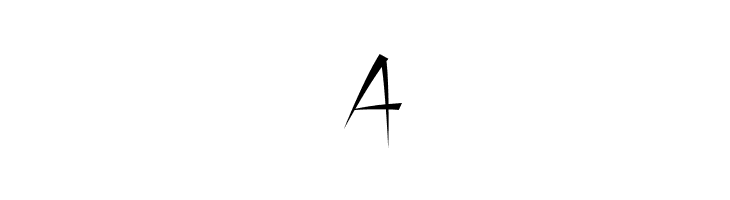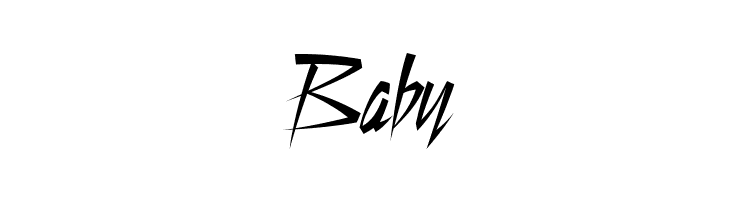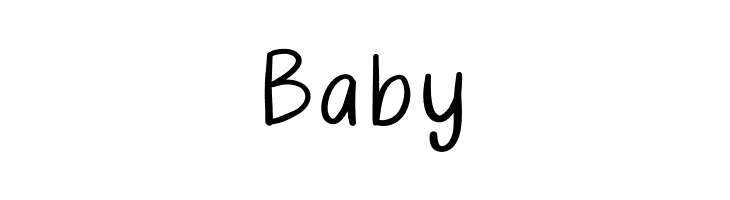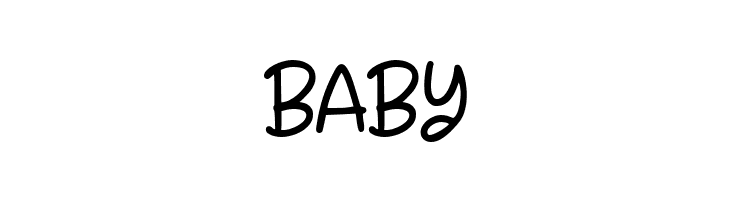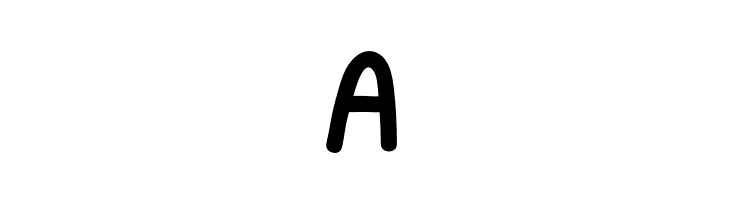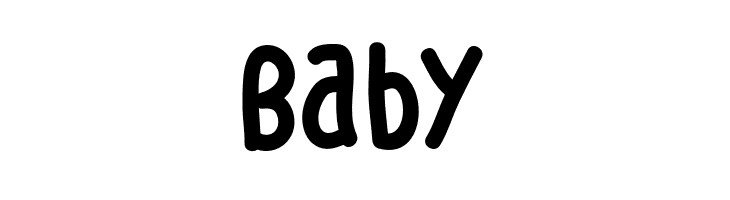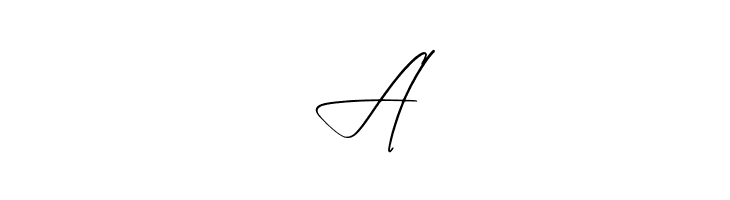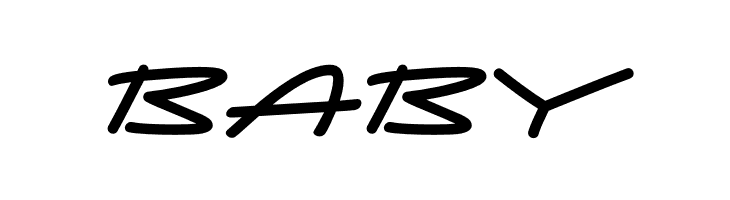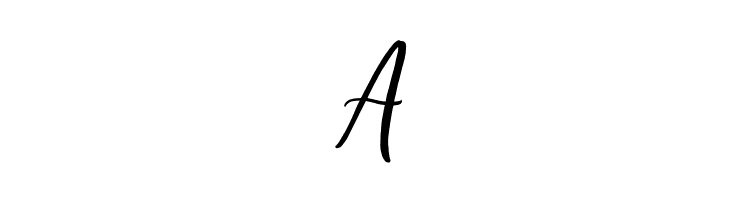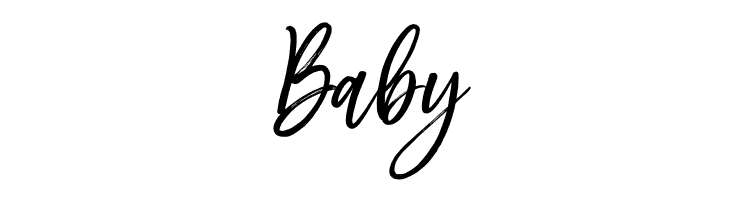
Playful handwritten script with tall, narrow, and whimsical letterforms.
A playful, bold font with rounded edges and a slightly condensed form.
A playful handwritten font with a smooth, consistent flow and friendly appearance.
A romantic, cursive script font with elegant, flowing letters.
A lively, brush-style handwritten font with dynamic strokes.
A casual, handwritten-style font with smooth, fluid strokes and a personal touch.
A bold, high-contrast serif font with dramatic and elegant features.
A fluid and elegant handwritten font with thin, continuous strokes.
A playful and elegant script font with flowing cursive letterforms.
A playful, casual handwritten font with smooth, rounded strokes.
A playful, bold handwritten font with a casual and friendly style.
A modern, elegant handwritten font with fluid, cursive strokes.
A playful, handwritten script font with a modern and dynamic style.
Elegant cursive script with a handwritten feel.
A playful, casual handwritten font with smooth, rounded strokes.
A playful, bold handwritten font with smooth curves and a casual style.
A lively and expressive handwritten font with fluid, dynamic strokes.
A playful, handwritten font with a whimsical and casual style.
Tall, thin, whimsical handwritten script with playful curves.
A playful handwritten font with irregular strokes and a casual, organic flow.
A fluid, handwritten script font with elegant curves and a personal touch.
Casual handwritten font with a playful, friendly vibe.
A quirky, tall sans-serif with a hand-drawn vintage vibe.
A fluid and elegant script font with smooth, flowing lines.
A playful, handwritten font with a quirky style.